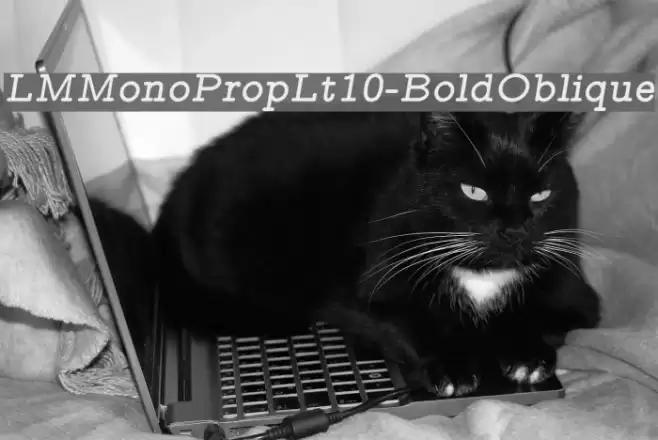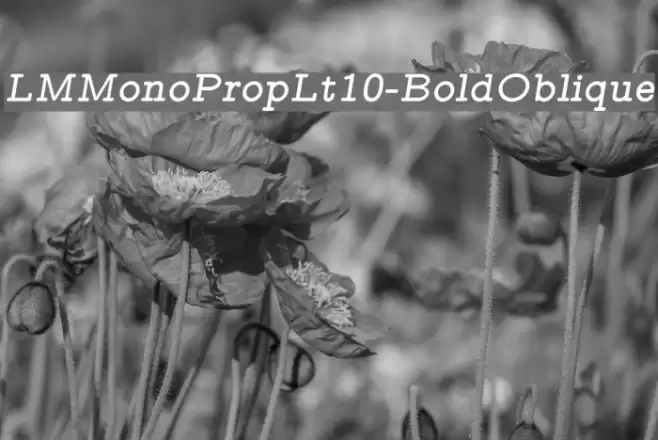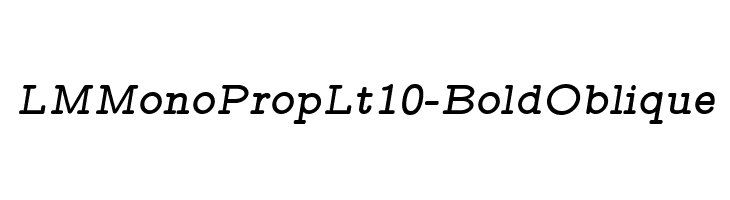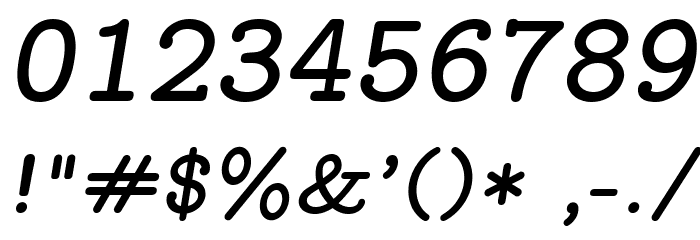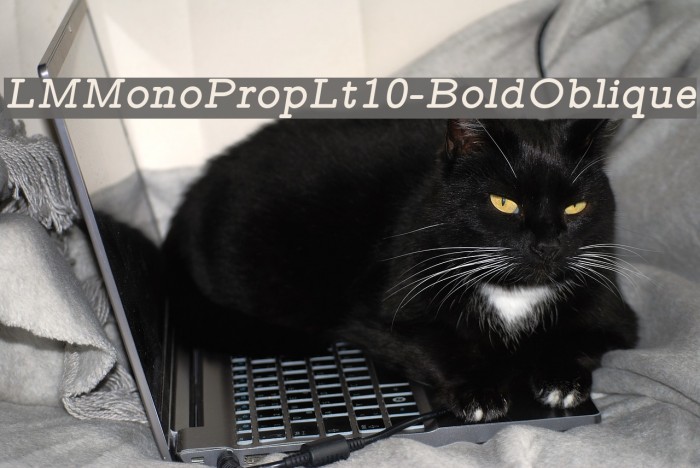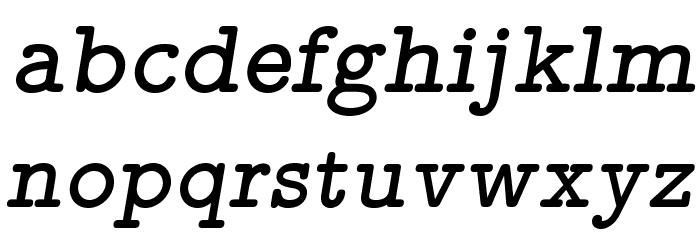
LMMonoPropLt10-BoldOblique Font
LMMonoPropLt10-BoldOblique Description
This font features a monospaced design with a bold and oblique style, offering a modern twist on traditional typewriter fonts. The characters are evenly spaced, providing a uniform appearance that enhances readability. The bold weight adds emphasis, while the oblique angle introduces a dynamic feel, making it suitable for both technical and creative applications. The font includes a full set of uppercase and lowercase letters, numerals, and a variety of special characters, ensuring versatility across different contexts.
A bold, oblique monospaced font with a modern, dynamic style from Uncategorized fonts.
- Proposed Projects: Ideal for coding environments, technical documentation, and creative design projects requiring a modern typewriter aesthetic.
- Use Case: Headlines, Body text, Logos, Coding